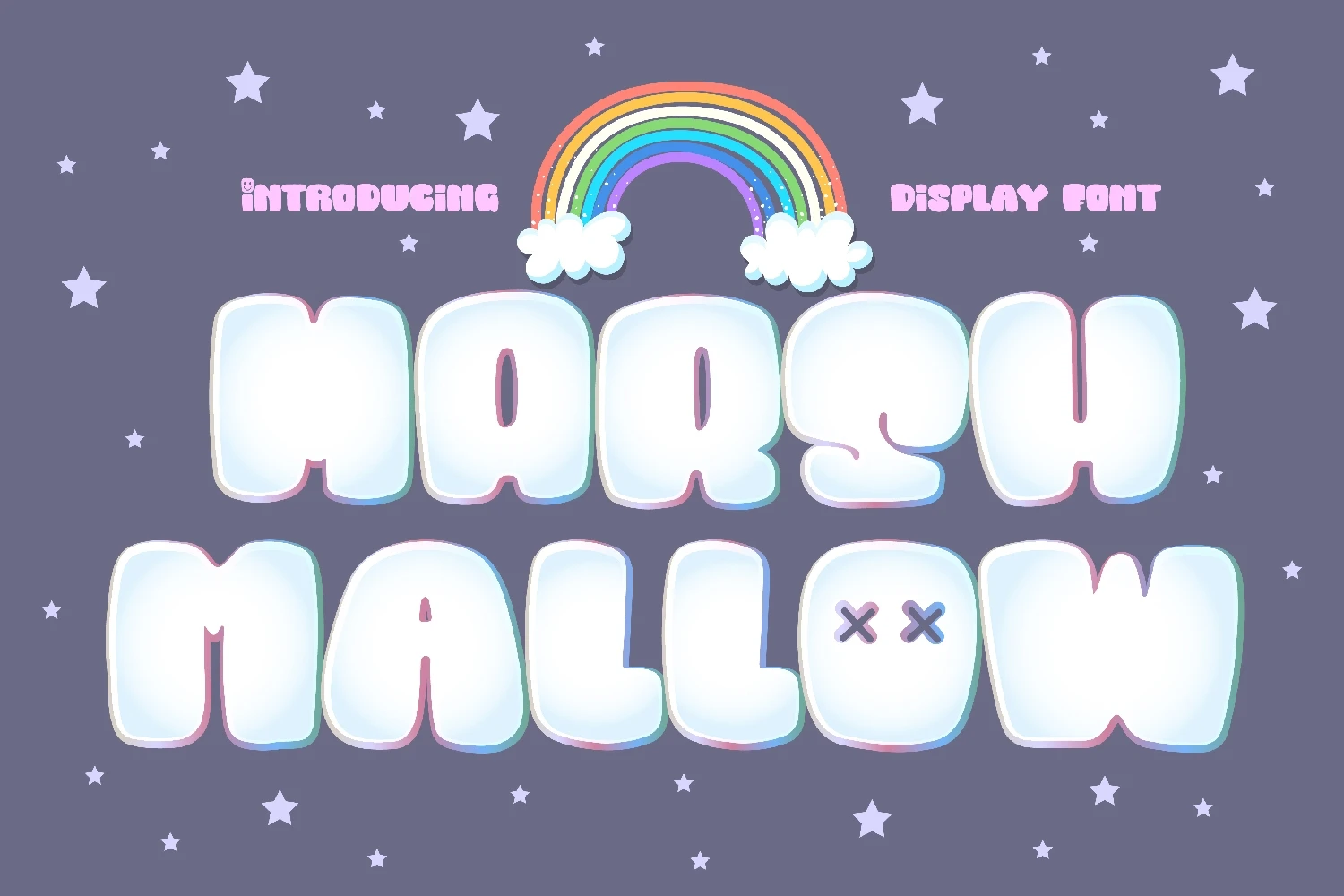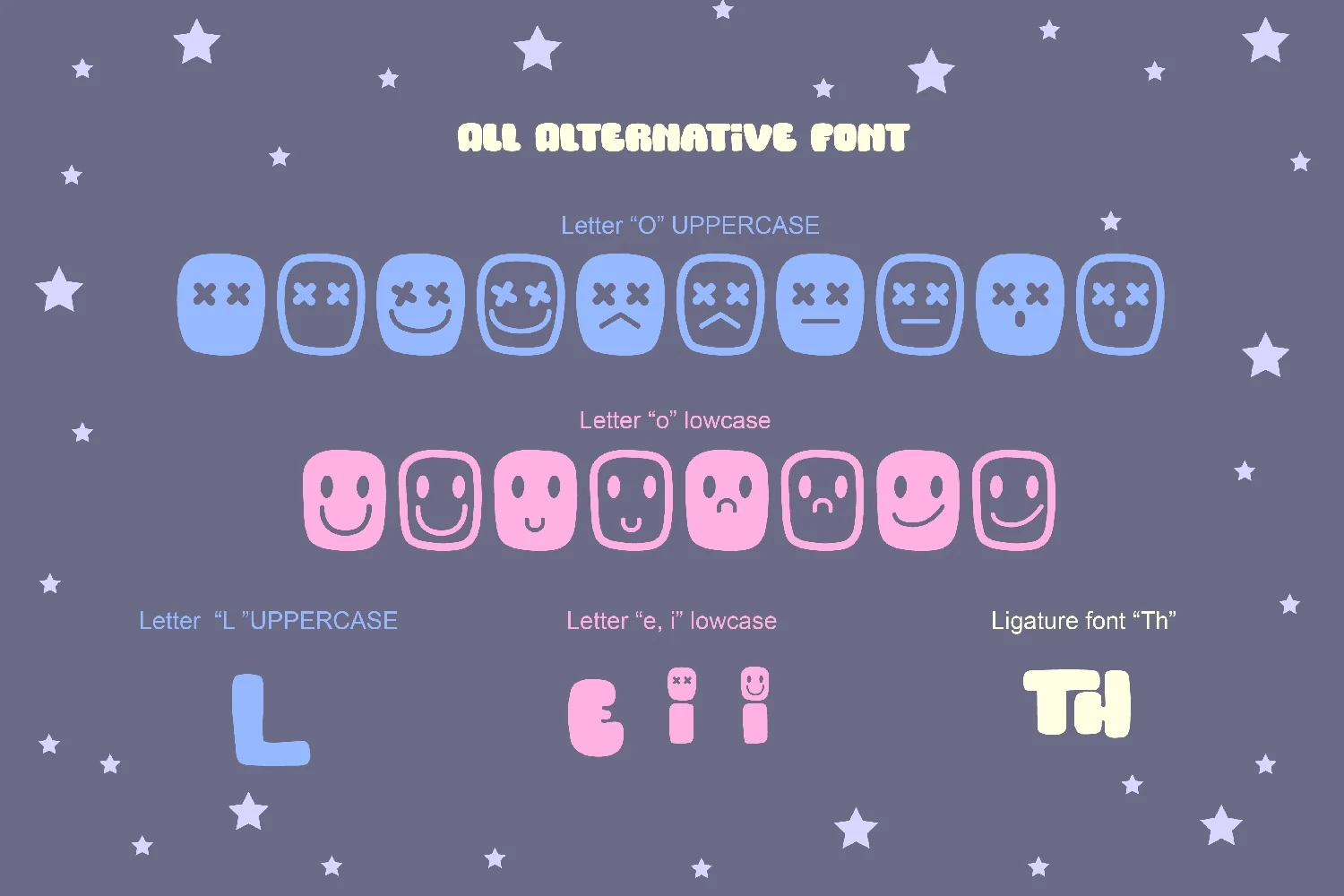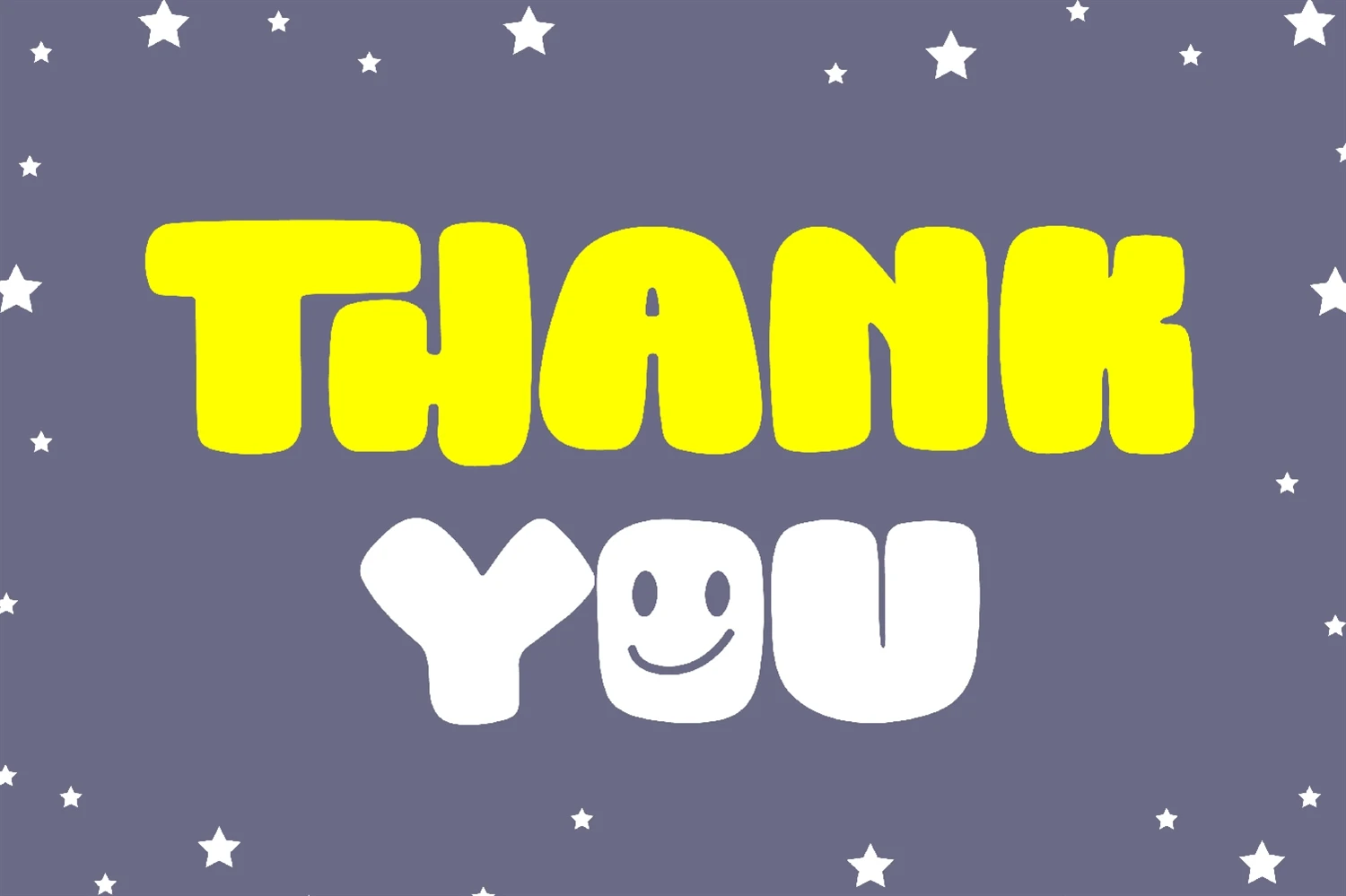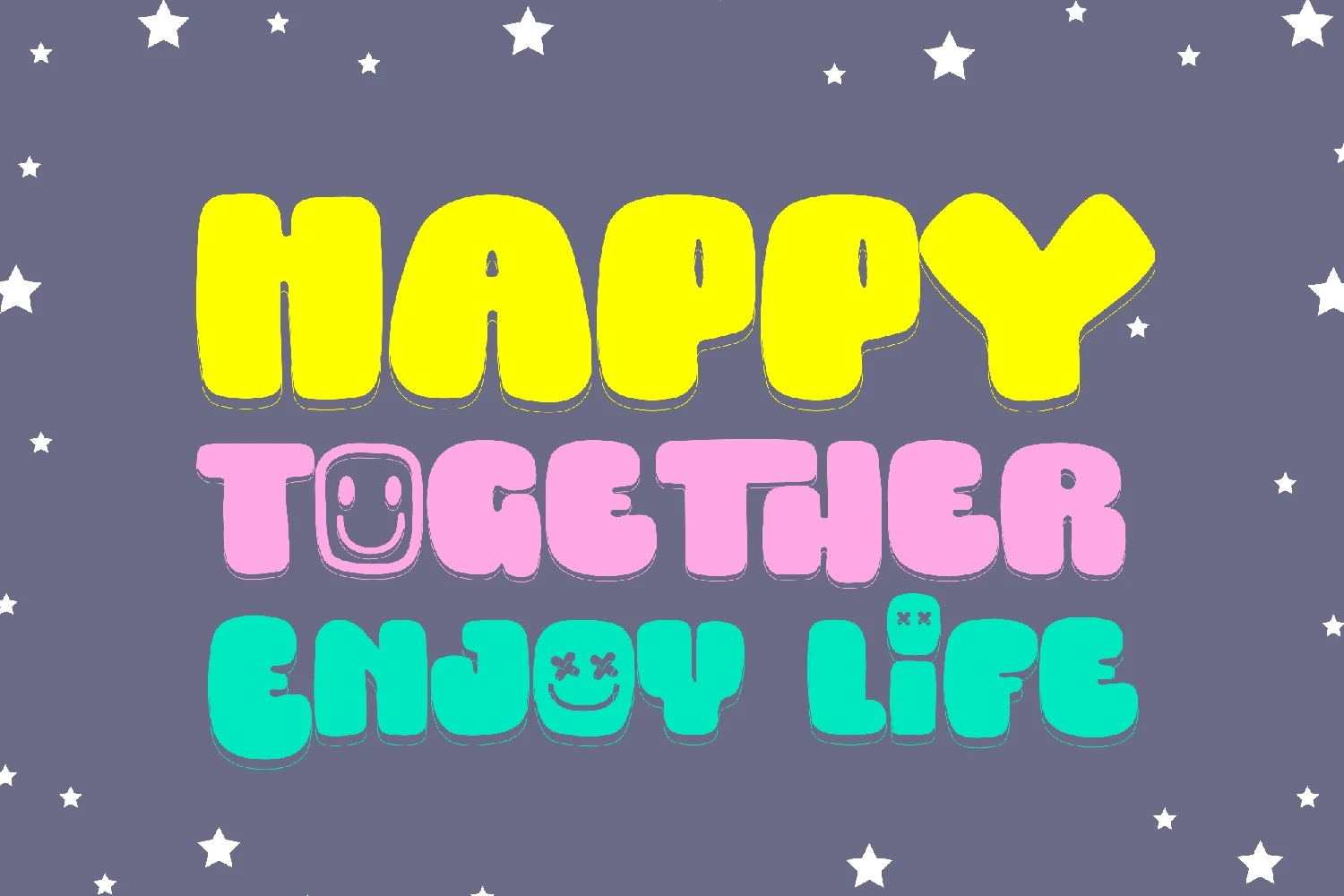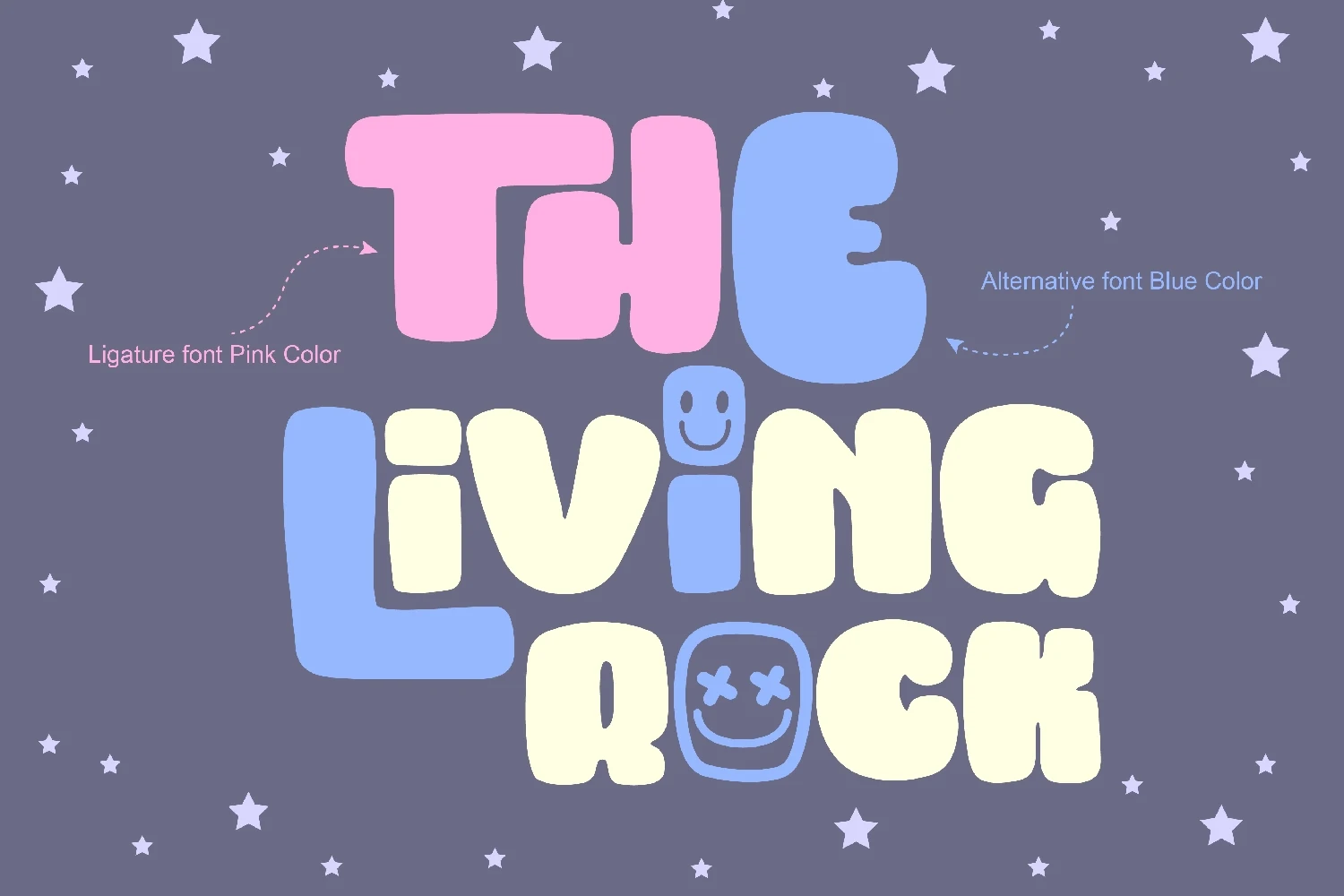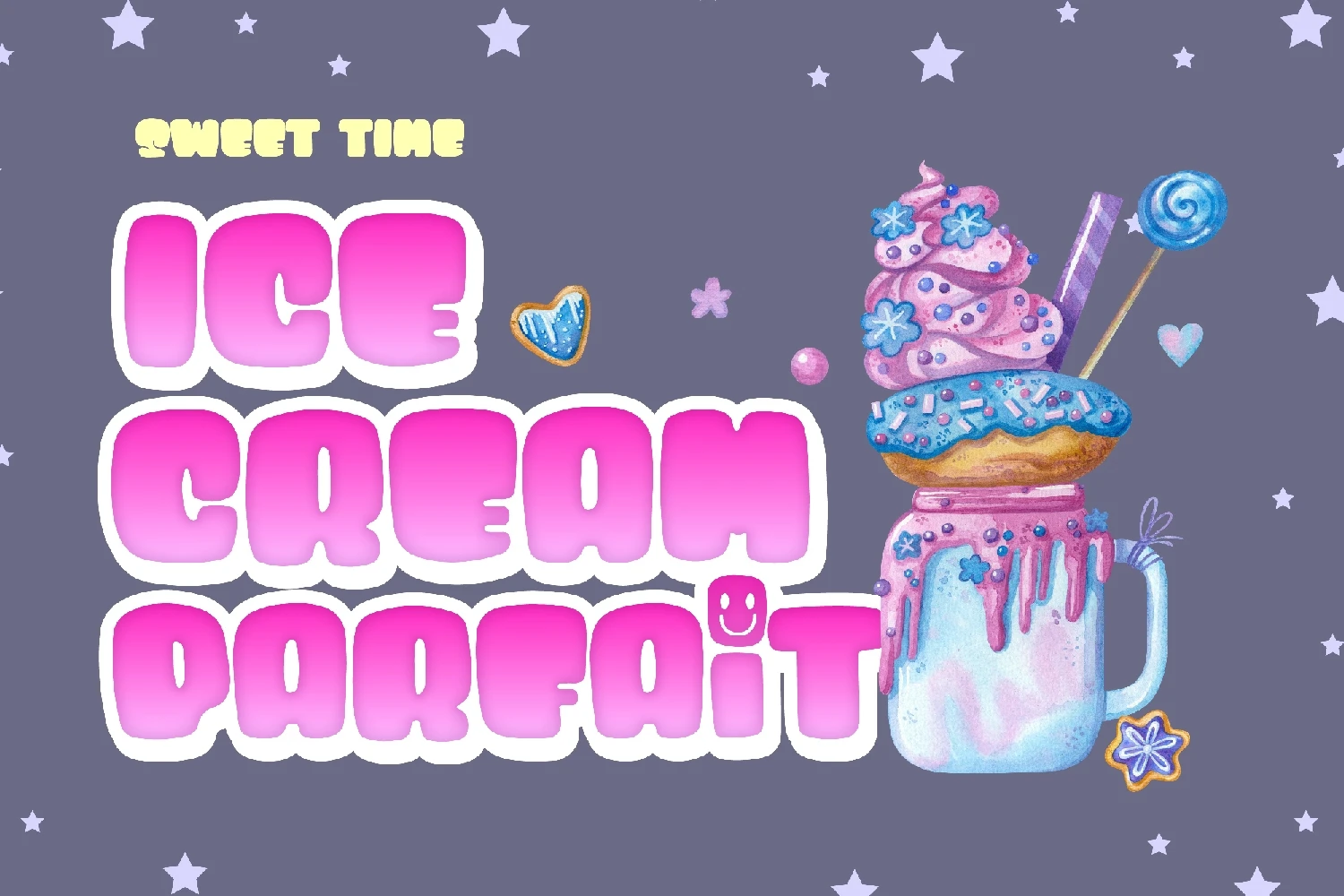
Marshmallow is a cute, cool, and friendly display font. It embodies playfulness and authenticity and is the perfect choice for any childrens activity or school project. Add this chunky lettered font to your designs and notice how it makes them come alive!